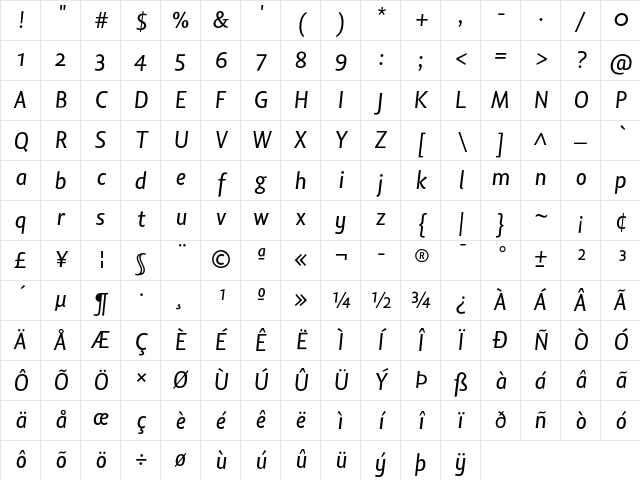
Complete Lisboa Sans OSF Italic glyph index. Displaying only characters natively supported by Lisboa Sans OSF Italic font.
Lisboa Sans OSF is a composed and adaptable typeface that performs quietly and consistently across a wide range of design contexts. The slanted form adds forward momentum and visual energy.